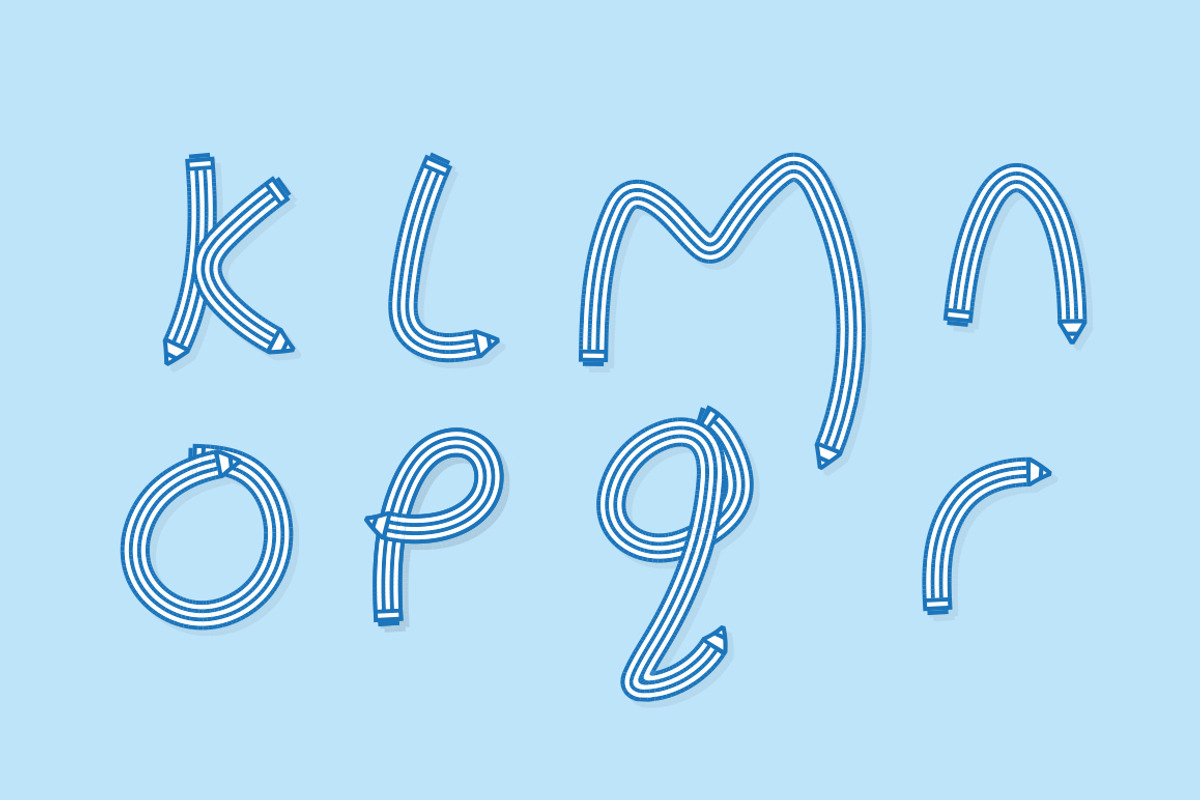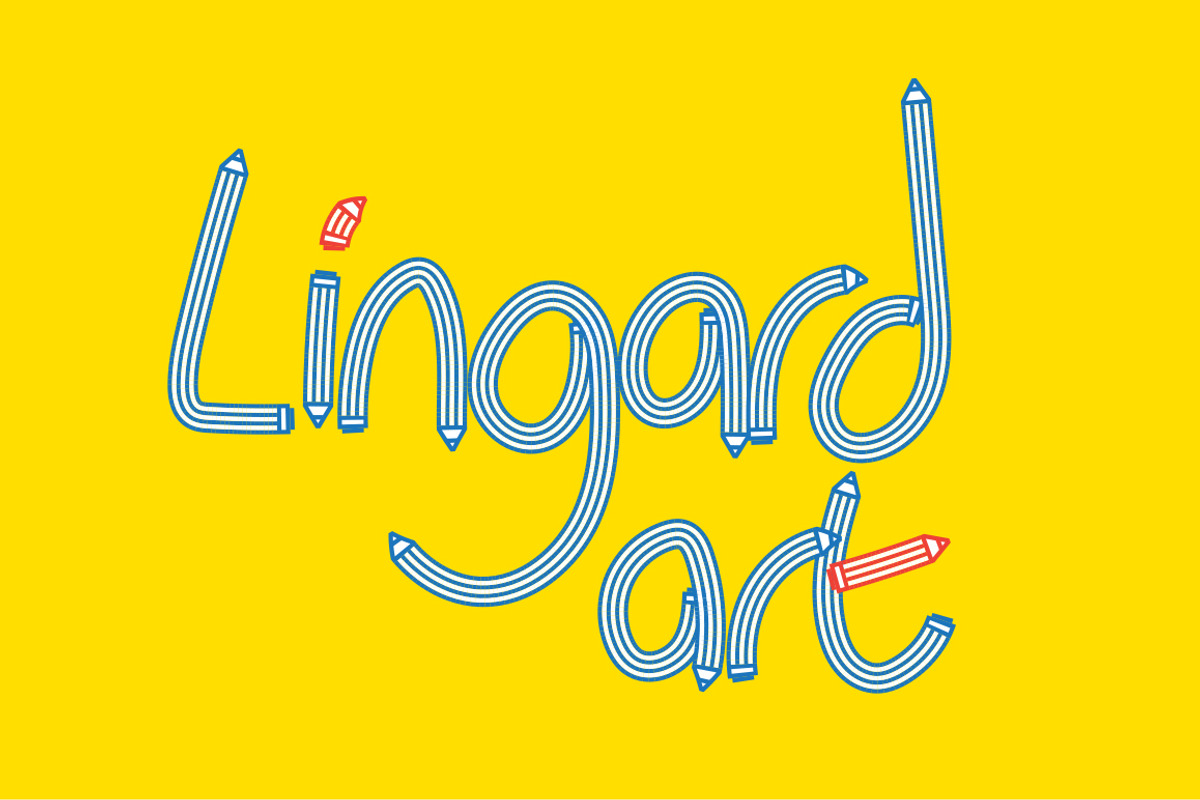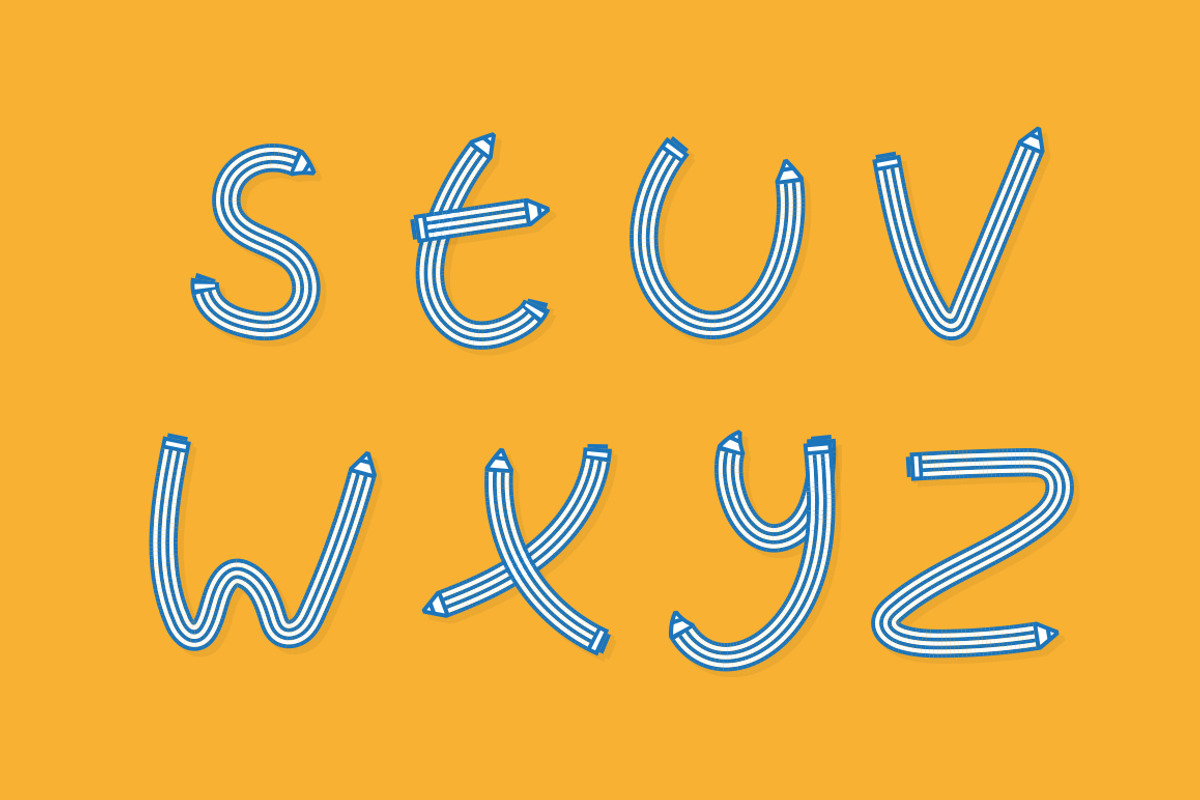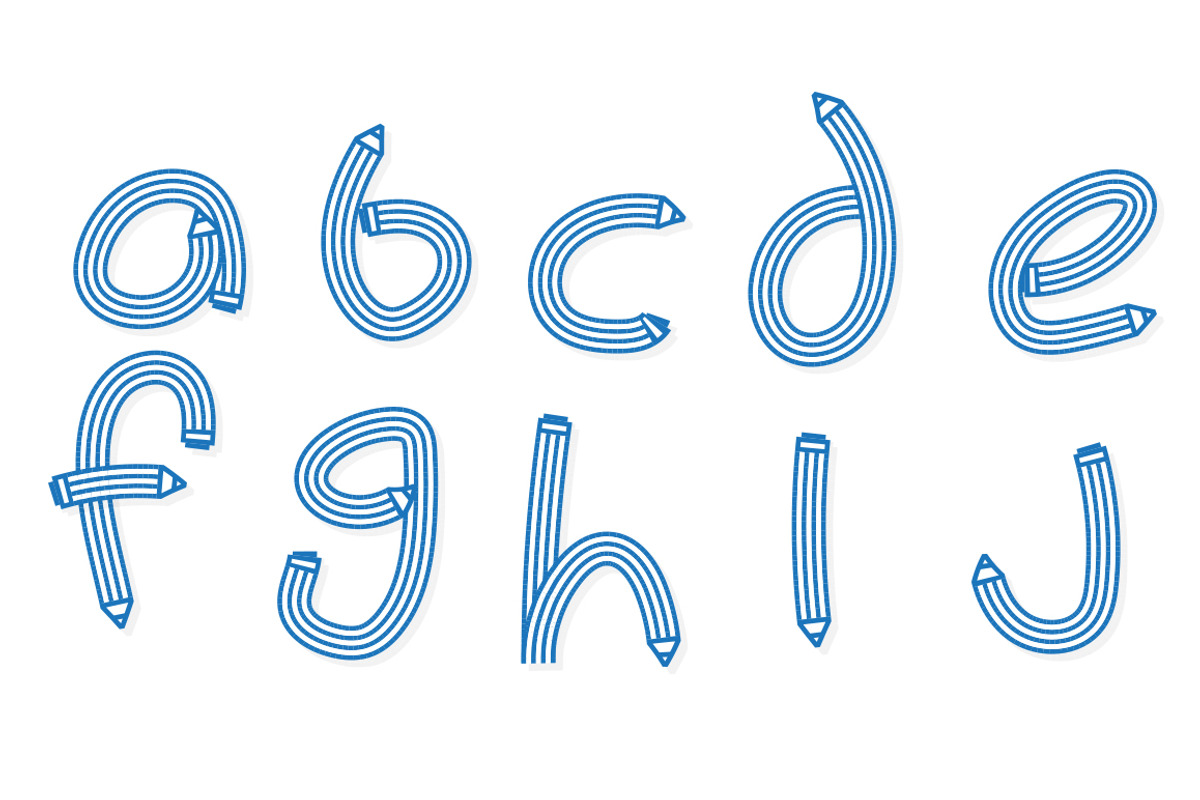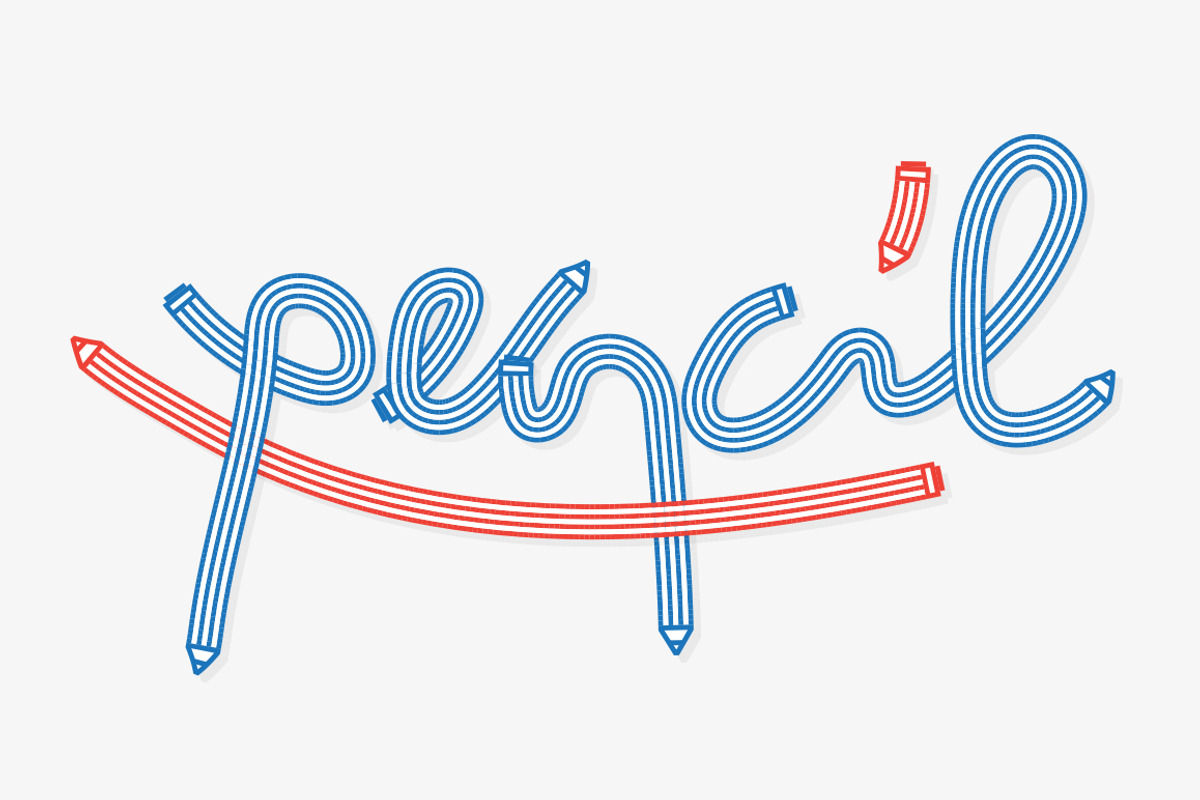
Pencil Font
Pencil Font by lingard design is a font selected for branding, posters, packaging, typography.
Why Pencil Font is worth a look
Pencil Font by lingard design fits naturally into Branding, posters, packaging, typography.